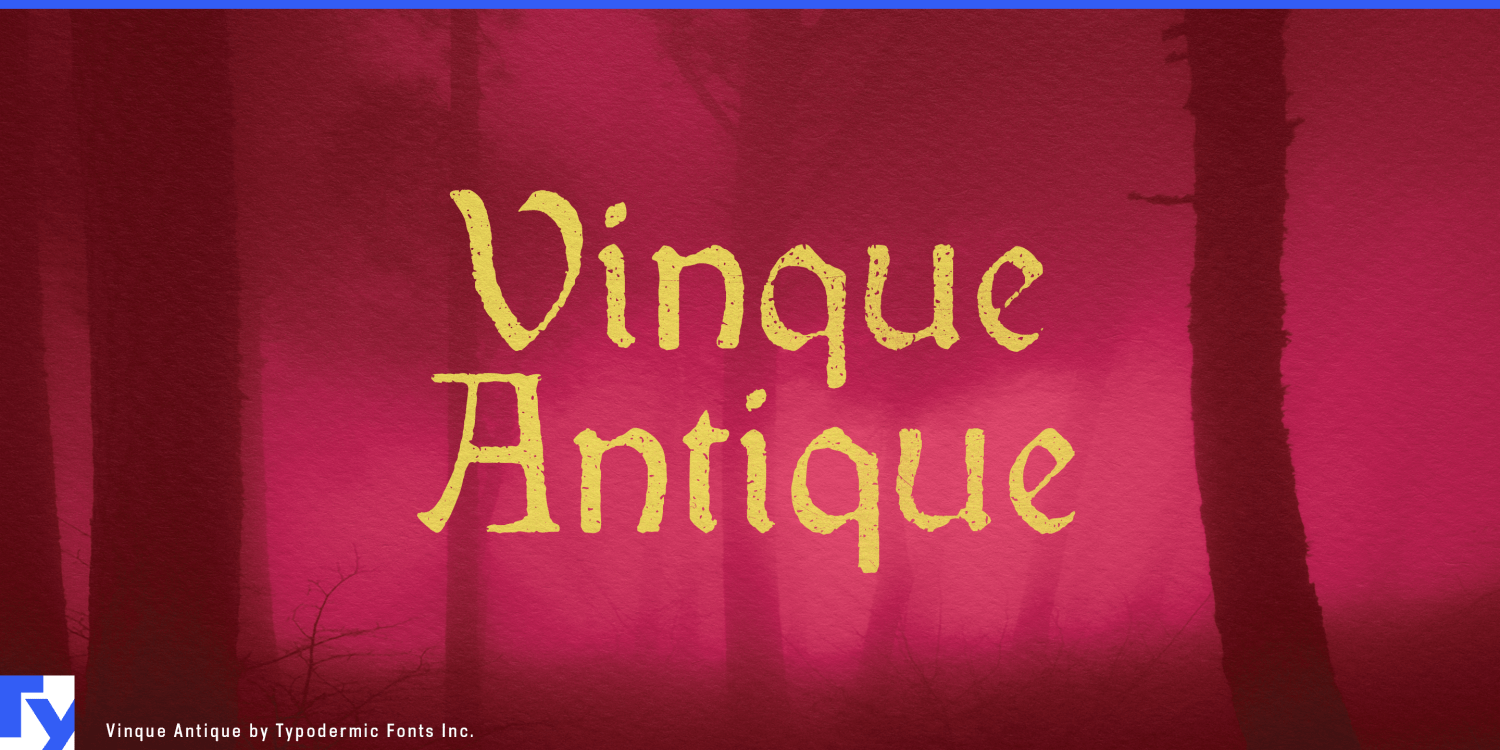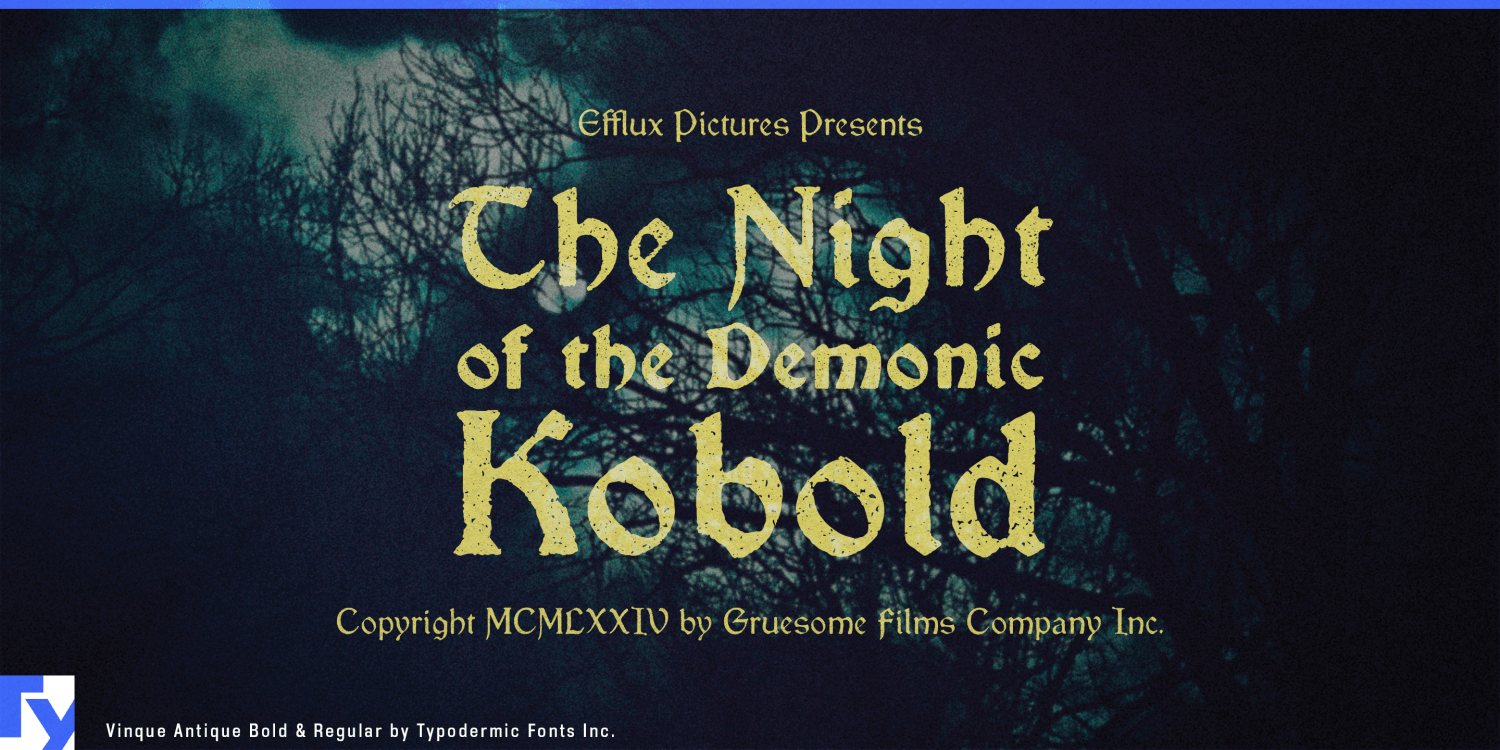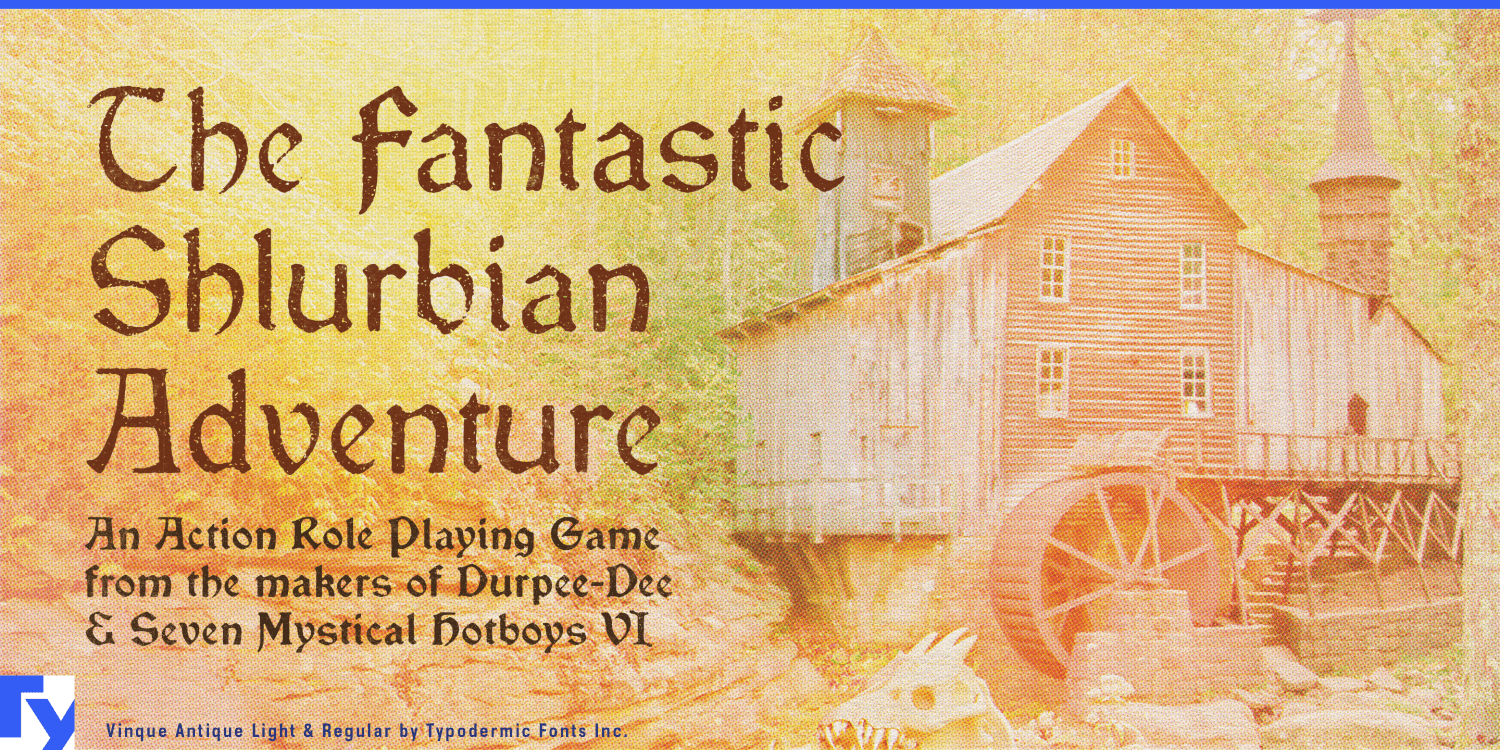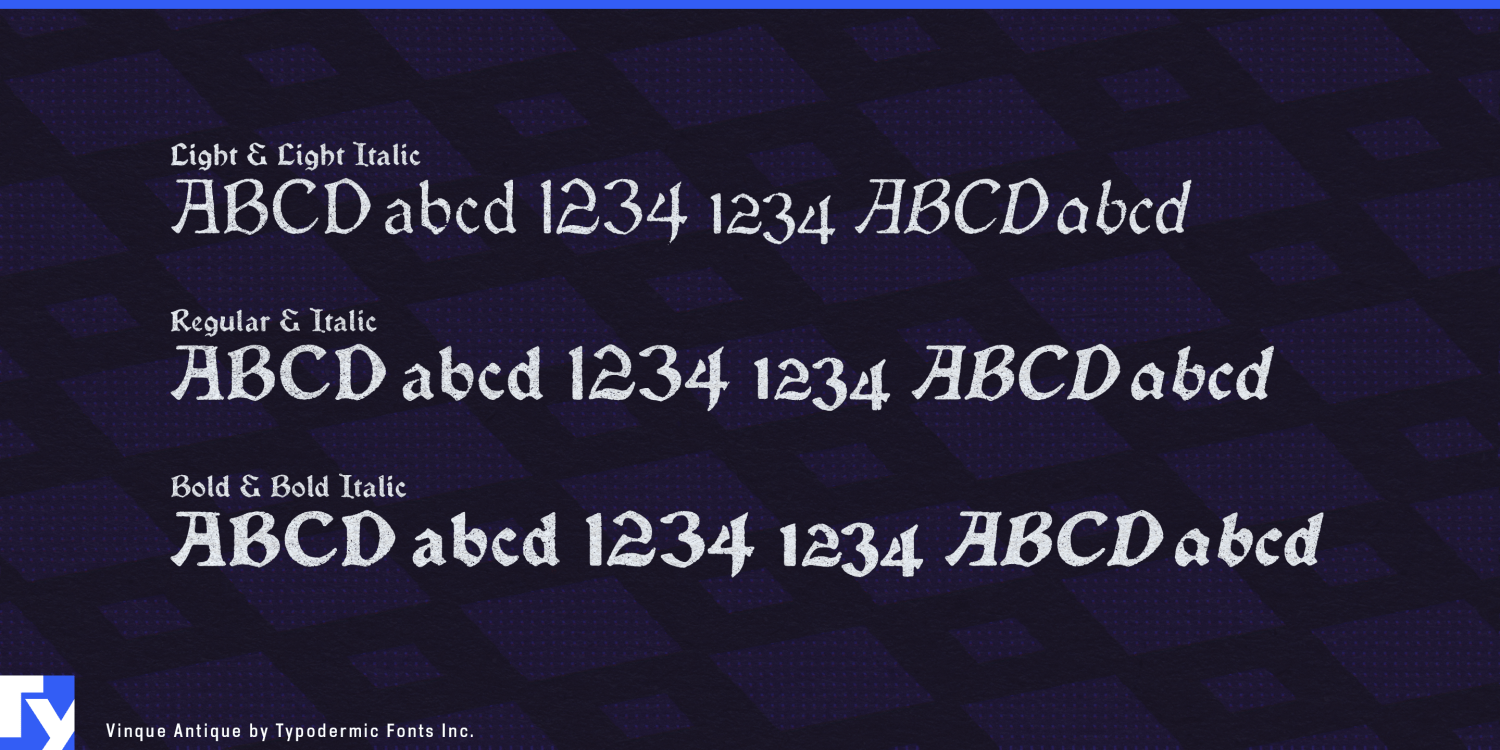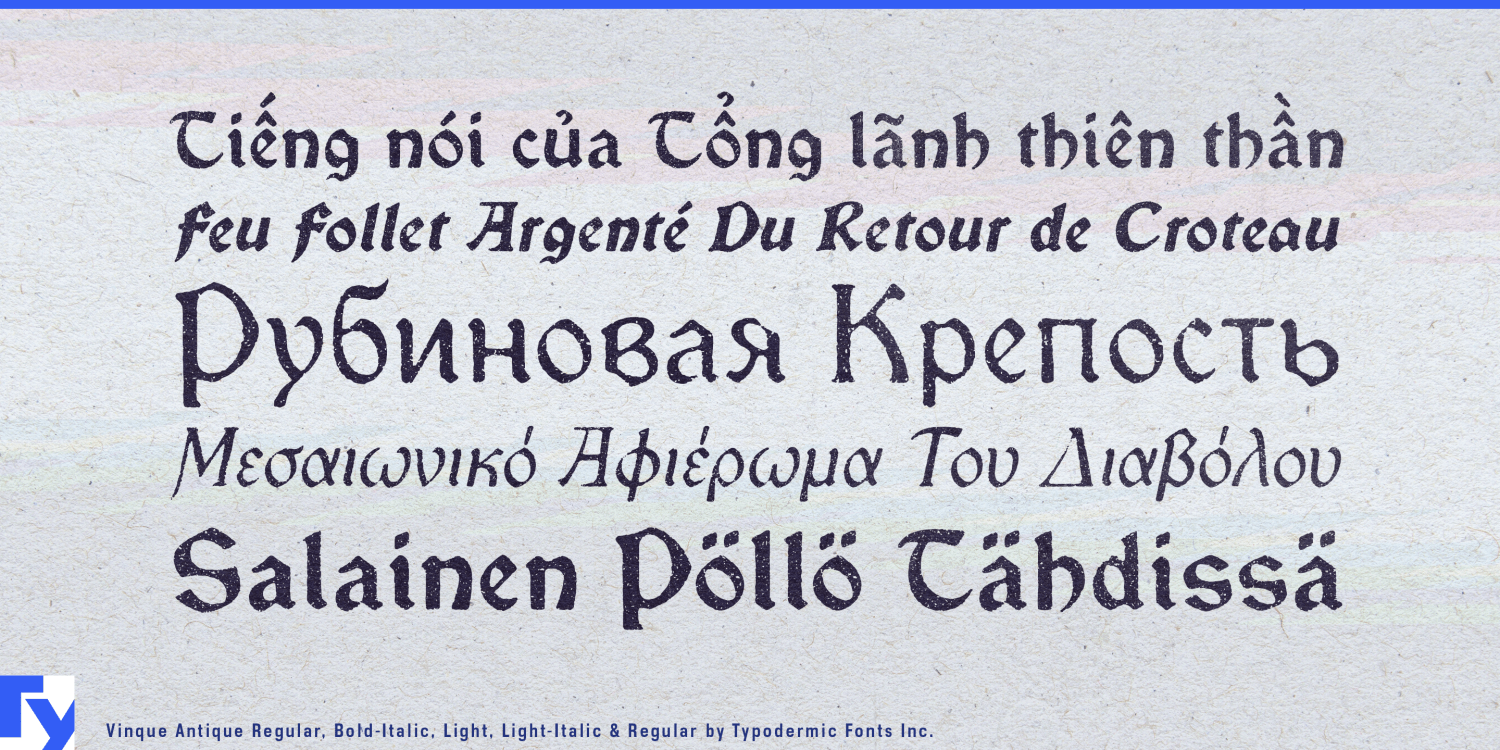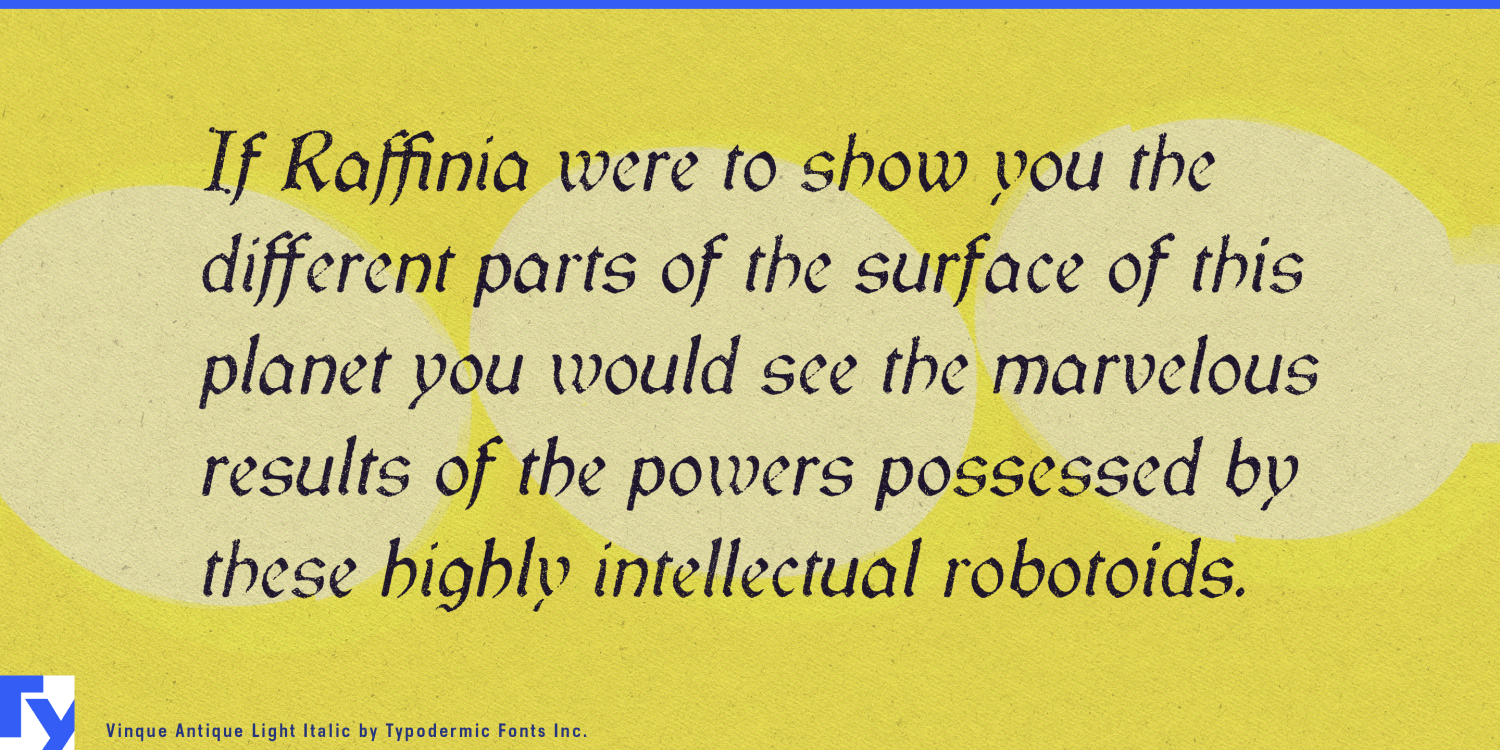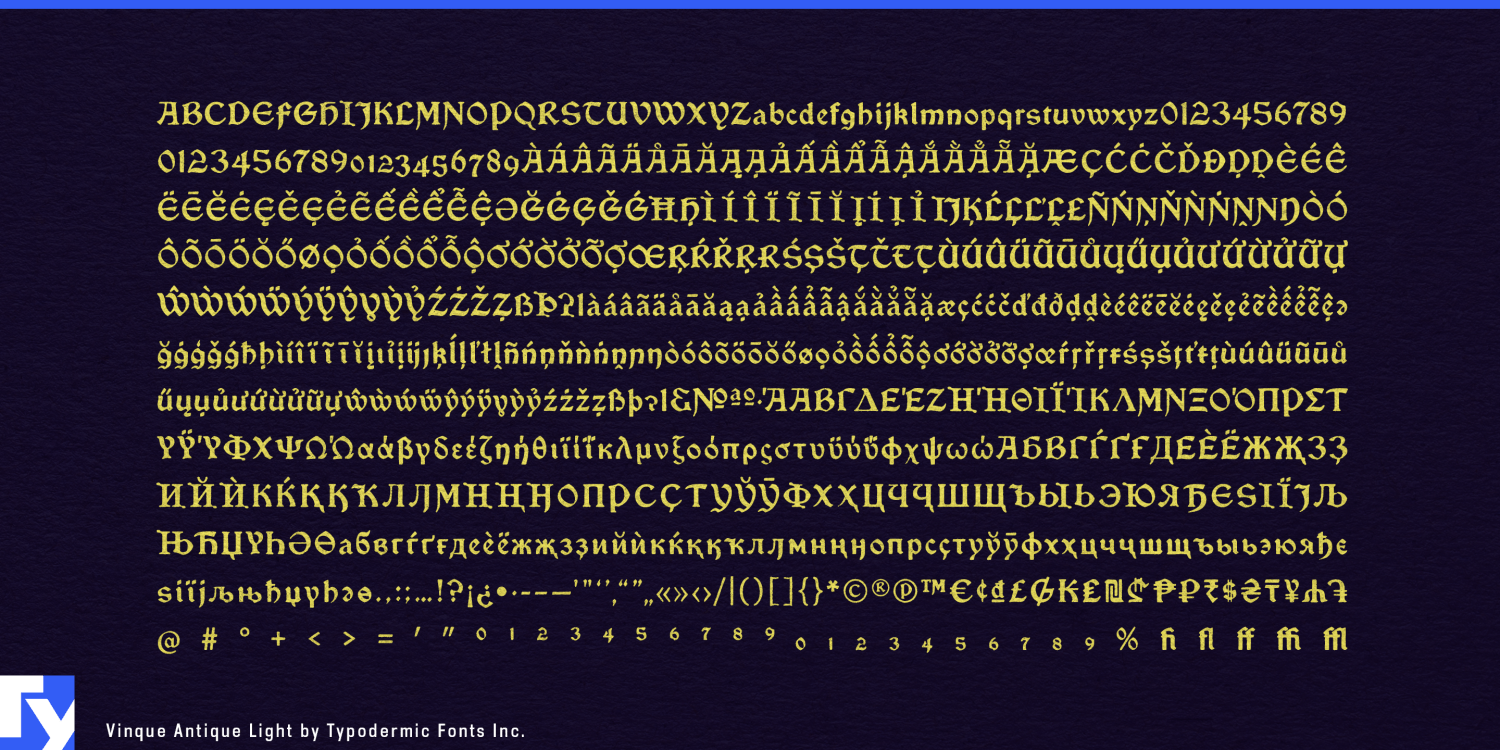
Vinque Antique
Font Family by Typodermic
Vinque Antique is for digital text that needs to look as though it has already lived somewhere. Its weathered outlines preserve Vinque’s comparatively readable gothic structure while introducing irregular edges and damaged surfaces that help newly generated words belong on old maps, battered notices, worn signs, and fictional documents. Alternate weathered forms reduce the telltale repetition that can make distressed digital lettering look mechanically stamped.
That makes it particularly useful for fantasy and historical games where the text changes but the artifact has to remain convincing. A quest board might generate new bounty notices with different names, destinations, monsters, and rewards; Vinque Antique lets those headings and labels remain live while still looking as though they belong to the same battered world.
Maps present the same problem. Region names, settlements, dungeon entrances, sea routes, campaign chapters, and discovered locations may change through localization, procedural generation, or player progress. Vinque Antique can place those names onto parchment-style maps without making them look like pristine interface text floating above the illustration.
The same approach works across wanted posters, guild notices, royal decrees, alchemist labels, merchant boards, tavern menus, journal headings, spellbook sections, inventory tags, expedition records, and weather-beaten plaques. Survival and exploration games can use it for ruined settlements, abandoned monasteries, forgotten expeditions, frontier trading posts, archaeological sites, and other places where signage and documents need to feel exposed, handled, and imperfect.
Tabletop and immersive entertainment can carry the same material quality through campaign maps, quest cards, encounter decks, character folios, game-master handouts, attraction maps, tavern boards, proclamations, themed-hotel signage, prop labels, and souvenir graphics.
Vinque Antique turns changing text into something that feels found rather than freshly entered. It is most useful when fantasy, folklore, or historical atmosphere has to survive inside maps, notices, signs, labels, and documents that cannot simply be weathered once as a static image.